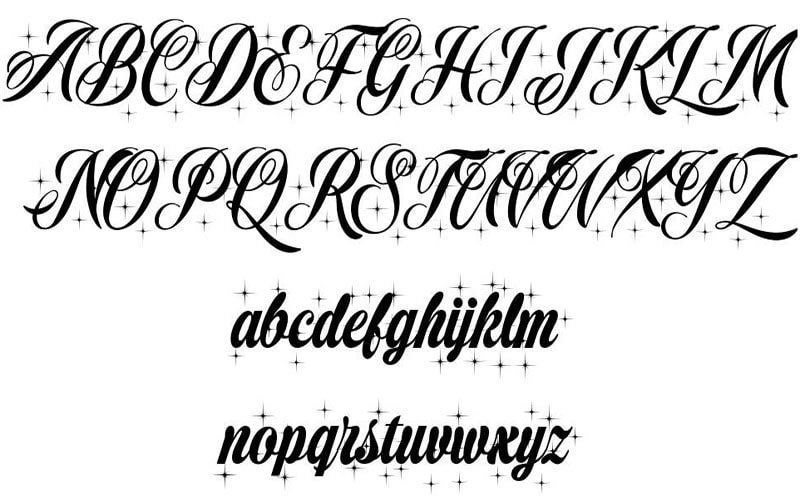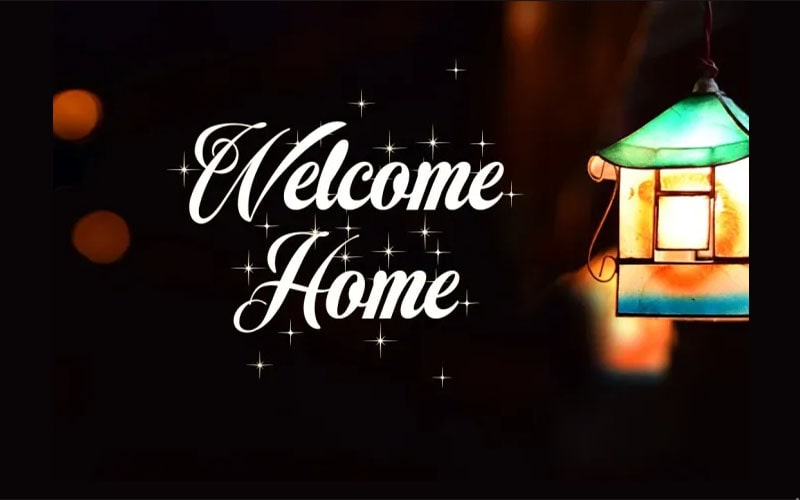
Christmas Sparkle Font is a delightful and whimsical Brush, Calligraphy typeface designed to bring the festive spirit of the holiday season to your projects.
Christmas Sparkle Font was designed by renowned font designer Billy Argel, known for his ability to create distinctive and thematic typefaces that cater to specific occasions and moods.
His expertise in blending creativity with functionality is evident in his vibrant and joyful design. With its playful, sparkling design, it is perfect for creating cheerful and celebratory designs that capture the magic of Christmas.
This extensive character set ensures versatility and adaptability for various text-based applications, allowing for a consistent look across different media.
Christmas Sparkle Font
| Font Name: | Christmas Sparkle Font |
| Style: | Brush, Calligraphy, Typeface |
| Font Designer: | Billy Argel |
This Sparkle Font typically comes in a single, festive style. The design features decorative elements such as sparkles, stars, and swirls, which add a touch of holiday cheer and joy to the lettering.
It is ideal for a variety of design applications such as Holiday greeting cards and invitations, Festive posters, and flyers for Christmas events, and Merchandise such as t-shirts, mugs, and decorations.